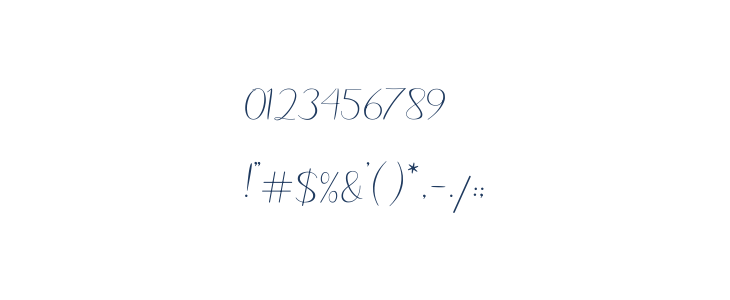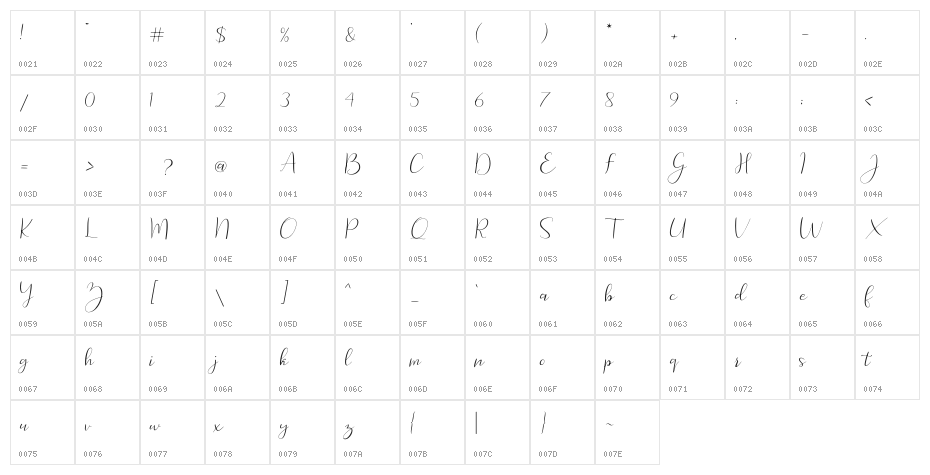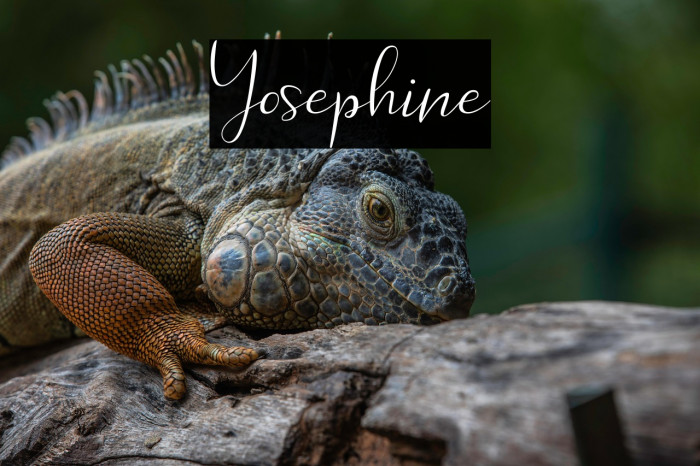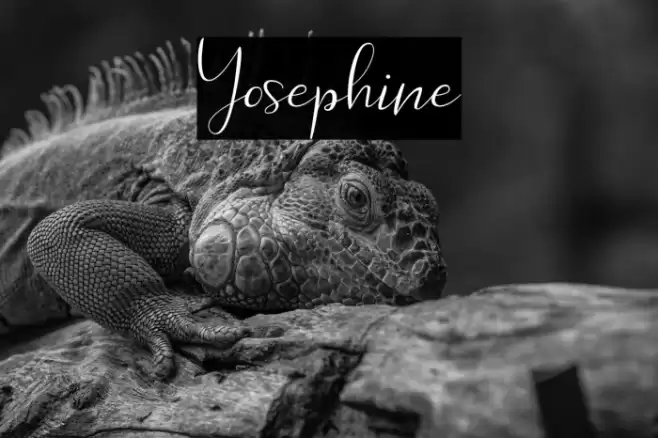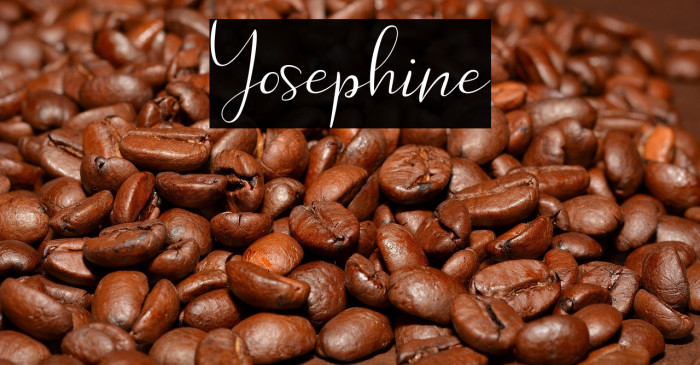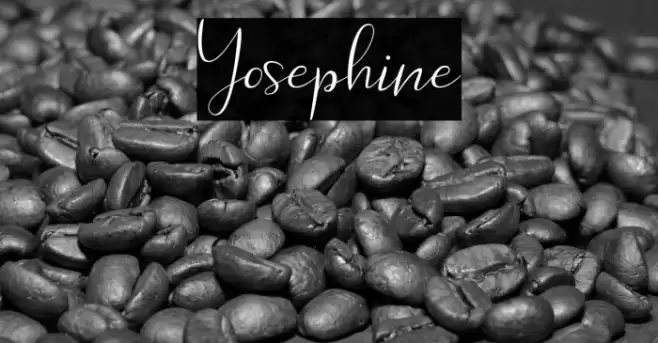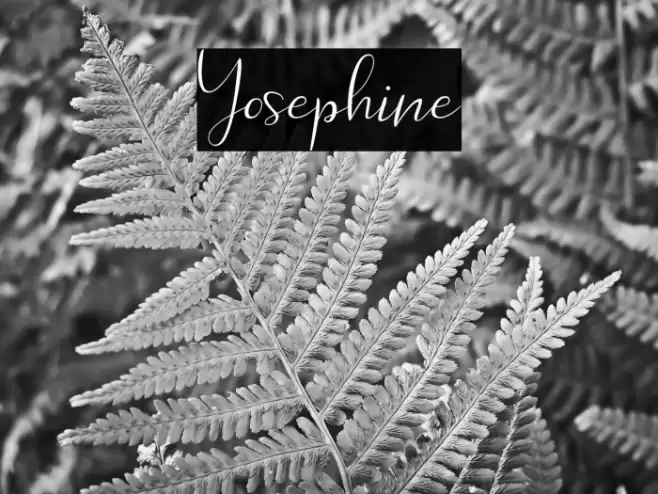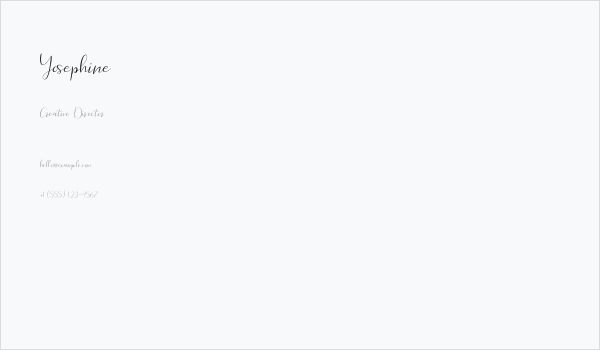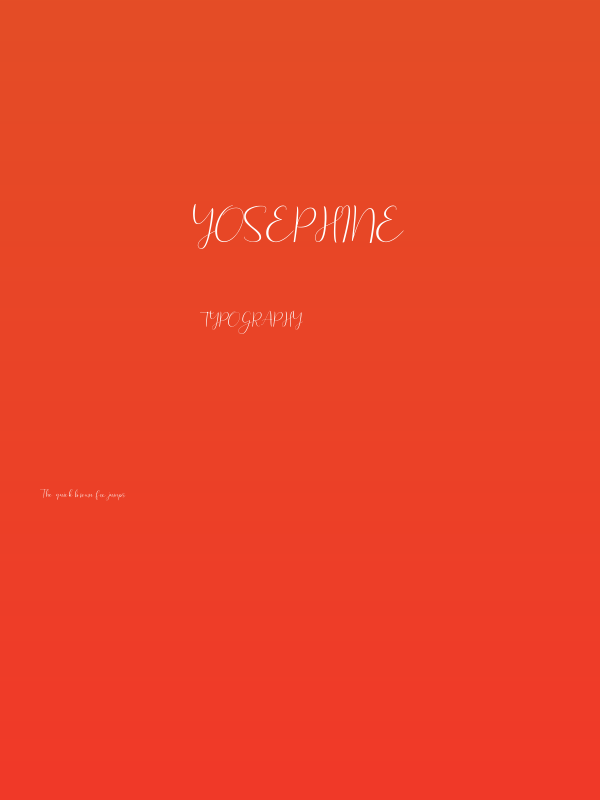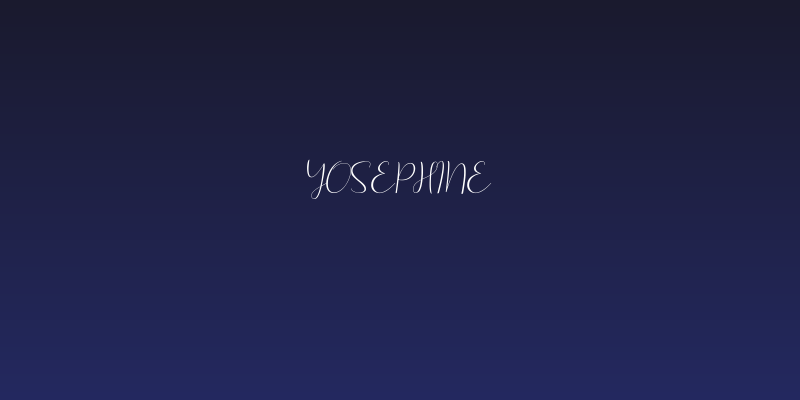
Yosephine Font
Yosephine Description
This elegant script font features a graceful and flowing design, characterized by its thin, delicate strokes and high contrast between thick and thin lines. The letters are connected in a fluid manner, giving it a handwritten appearance that exudes sophistication and charm. The uppercase letters are tall and slender, while the lowercase letters maintain a consistent flow, enhancing readability. The numerals and special characters are crafted with the same attention to detail, ensuring a cohesive look across all text elements.
| Proposed Projects | Ideal for wedding invitations, elegant branding, personal stationery, and artistic projects that require a touch of sophistication. |